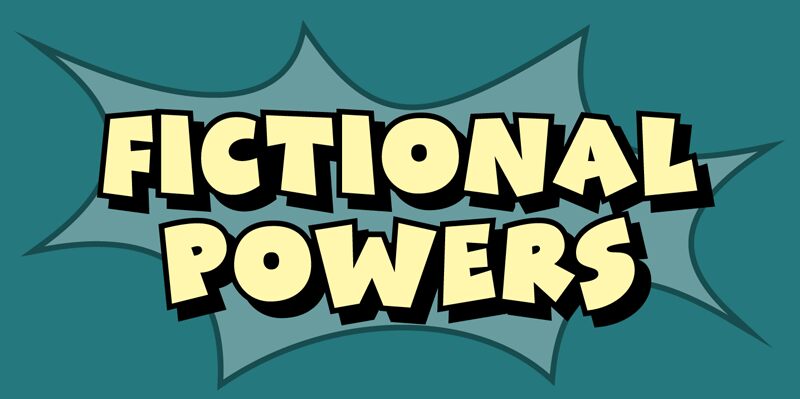
Fictional Powers by Pizzadude is a display font with an extra-bold weight and comic style. This fun and playful font is perfect for designing book covers, posters, and websites for children's books, comics, or video games. With its bold and impactful look, Fictional Powers can also be used for branding and logos that need to stand out from the crowd. The unique character shapes of this typeface add a touch of whimsy to any project while still maintaining legibility. Get creative with Fictional Powers and let your imagination run wild!